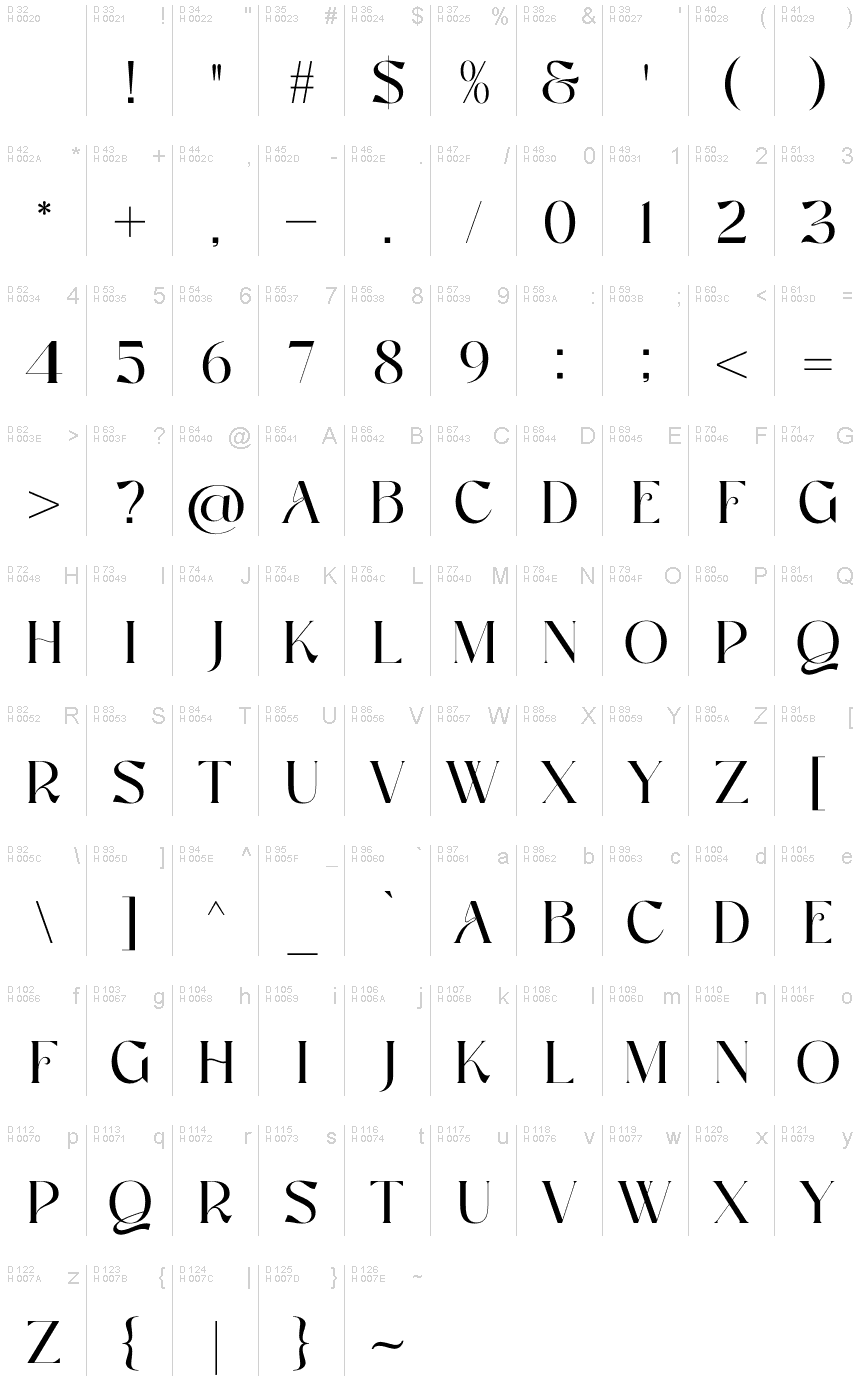
VASQUZ
Vasquz, the retro serif font by Storytype Studio, brings a touch of nostalgia to your design projects. With its semi-light weight, this display font exudes elegance and sophistication. Perfect for vintage-inspired branding, logo designs, and editorial layouts, Vasquz adds a classic charm to any project. Its timeless appeal makes it suitable for crafting stylish invitations, packaging designs that demand attention, or even creating eye-catching headlines in magazines. Let Vasquz transport your audience back in time as you infuse your designs with a tasteful dose of retro flair.